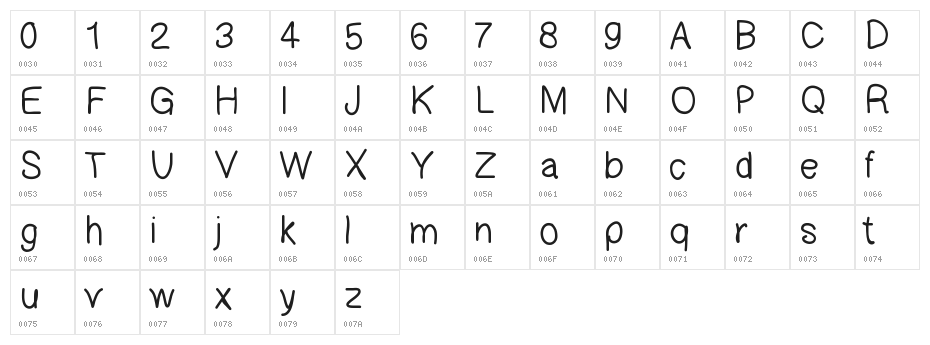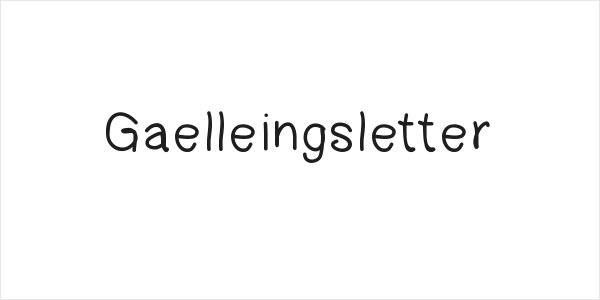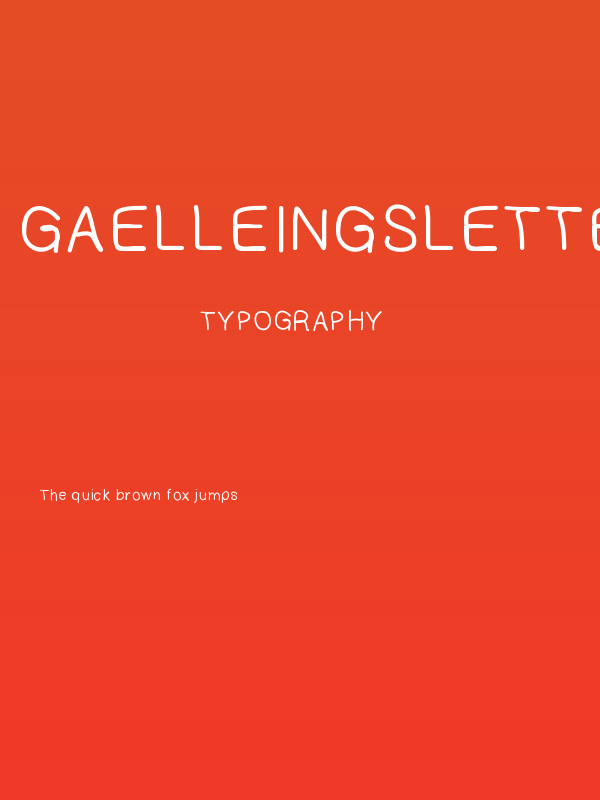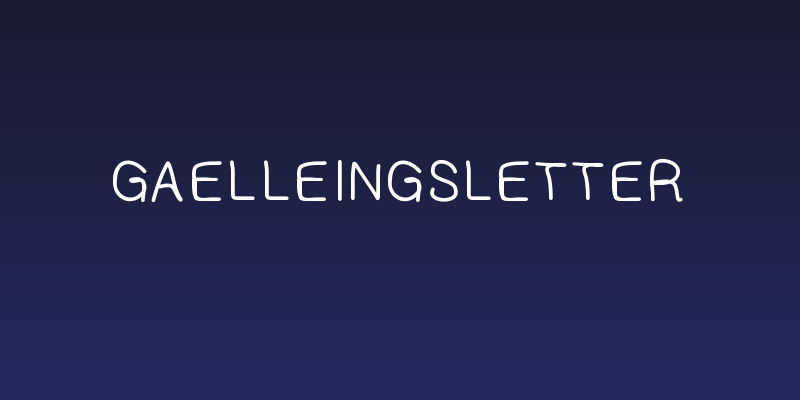
Gaelleingsletter Font
Gaelleingsletter Description
This font features a playful and informal style, characterized by its rounded and slightly irregular letterforms. The uppercase and lowercase letters maintain a consistent flow, with a hand-drawn appearance that adds a personal touch. The numerals follow the same whimsical style, making them easily readable yet unique. The overall design is approachable and friendly, suitable for projects that require a casual and inviting aesthetic. The font's simplicity and charm make it versatile for various creative applications.
| Proposed Projects | Ideal for children's books, greeting cards, casual branding, and playful posters. |